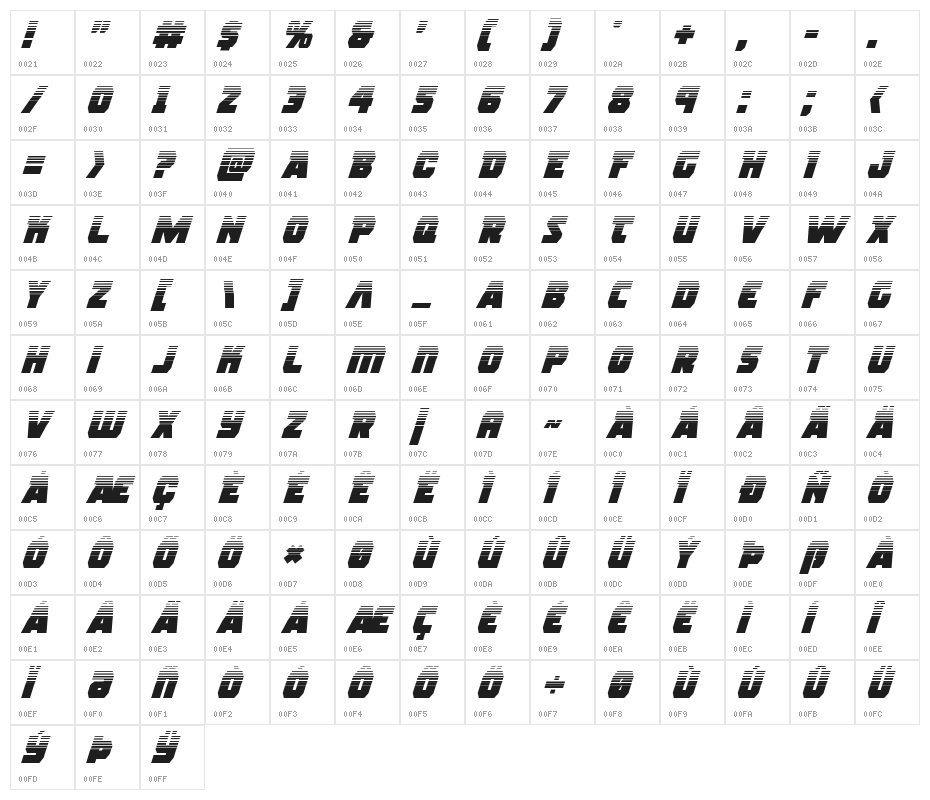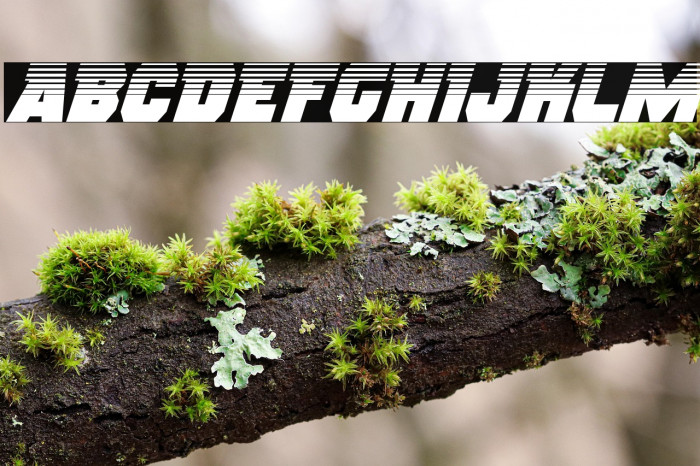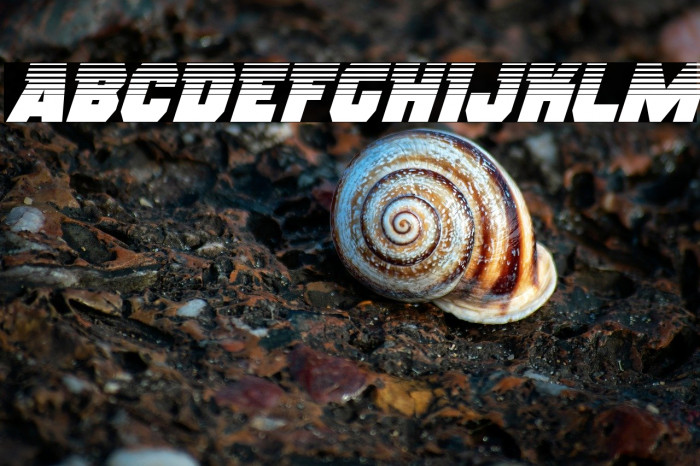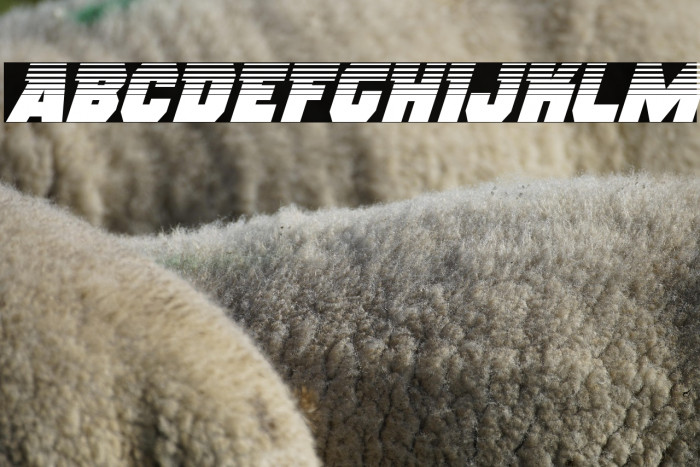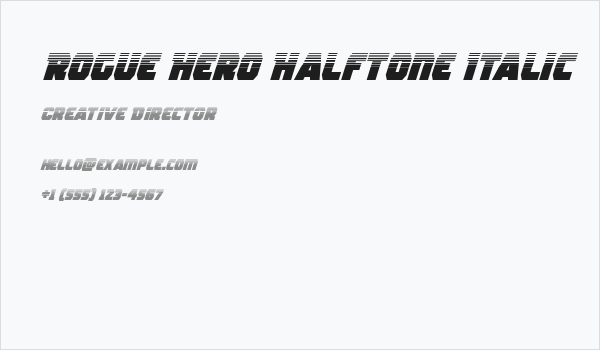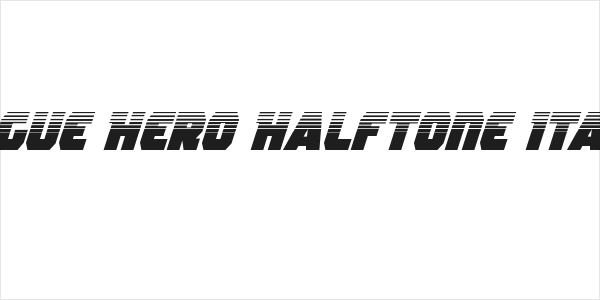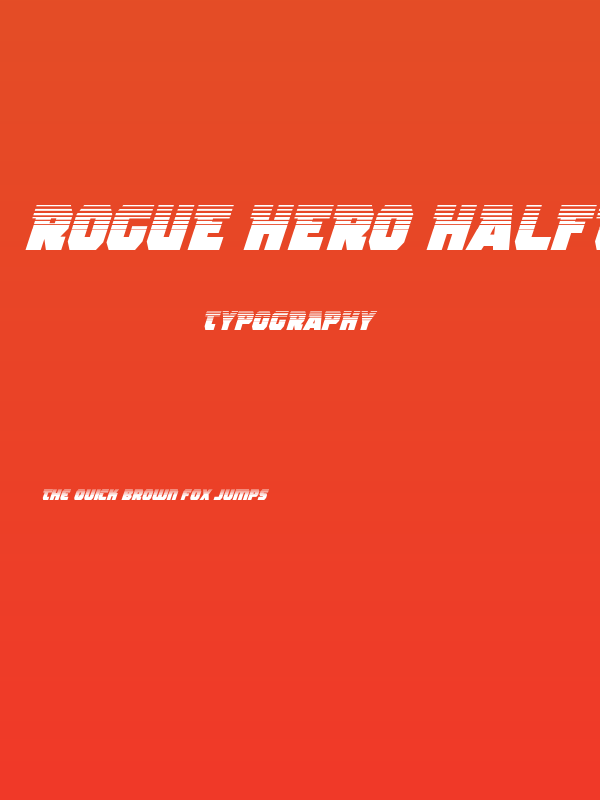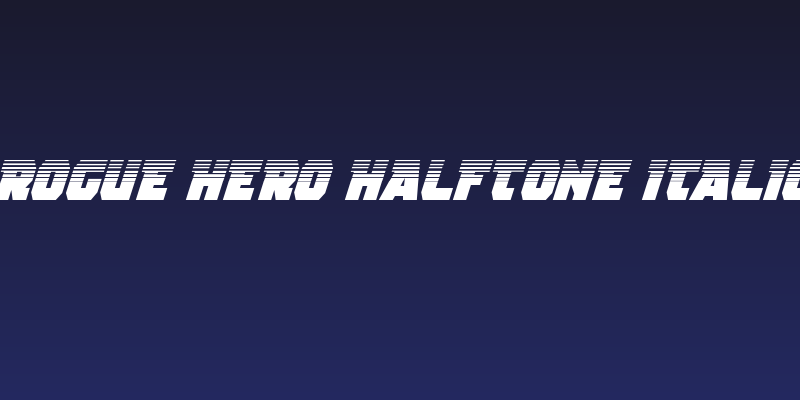
Rogue Hero Halftone Italic Font
Rogue Hero Halftone Italic Description
This font features a bold, dynamic style with a halftone effect that gives it a unique, futuristic appearance. The italicized letters add a sense of motion and energy, making it ideal for projects that require a modern and edgy look. The uppercase and lowercase letters are consistent in their slanted design, and the numbers and special characters maintain the same stylistic approach. The halftone lines create a sense of depth and texture, enhancing the overall visual impact. This font is perfect for attention-grabbing headlines, posters, and branding materials that aim to stand out.
| Proposed Projects | Ideal for use in posters, branding, video game graphics, and any project requiring a futuristic and bold aesthetic. |